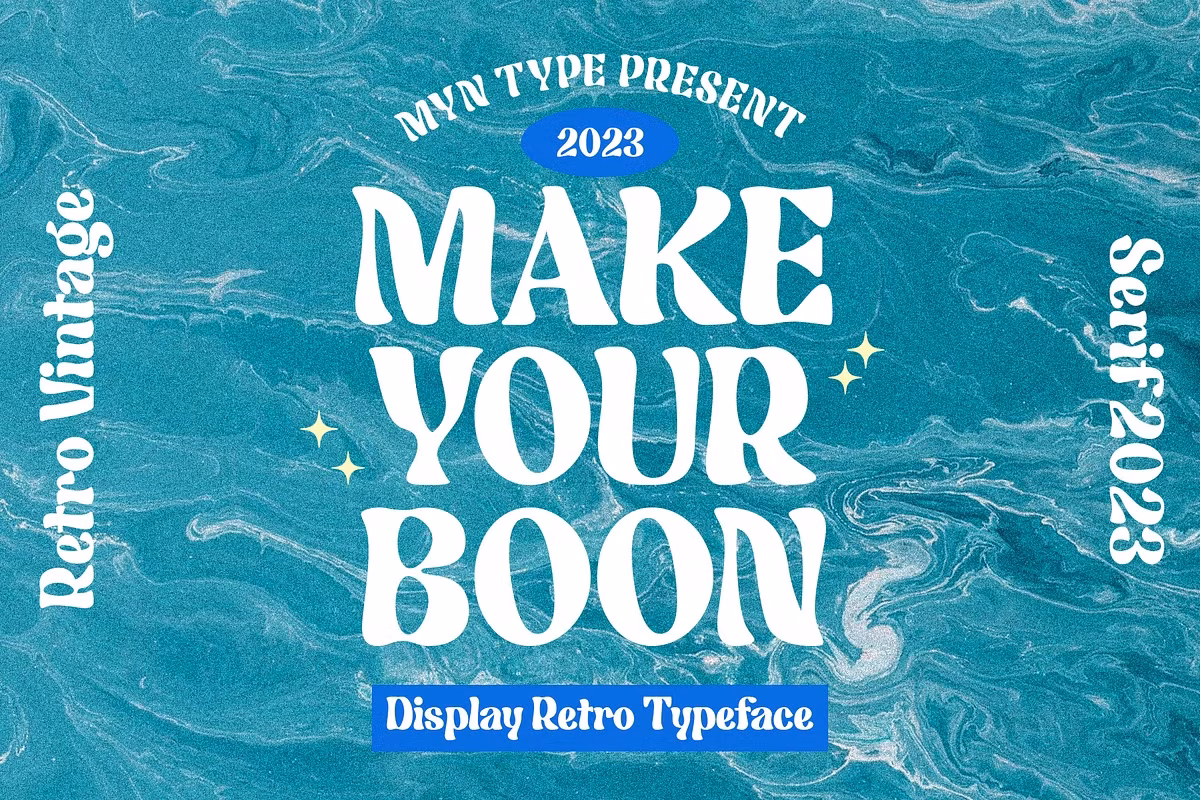
Make Your Boon - Unique Retro Serif Free Download
Make Your Boon - Unique Retro Serif Font Free Download
Add a nostalgic yet modern twist to your designs with Make Your Boon - Unique Retro Serif Font Free Download. This stylish serif font draws inspiration from vintage typography, featuring bold, distinctive serifs and a playful design perfect for logos, branding, posters, and any project that needs a retro, creative vibe.
Make Your Boon combines classic serif elements with a contemporary edge, making it ideal for everything from branding to editorial design. It includes uppercase and lowercase letters, numerals, punctuation, and multilingual support, giving you the flexibility to explore a range of layouts and creative ideas.